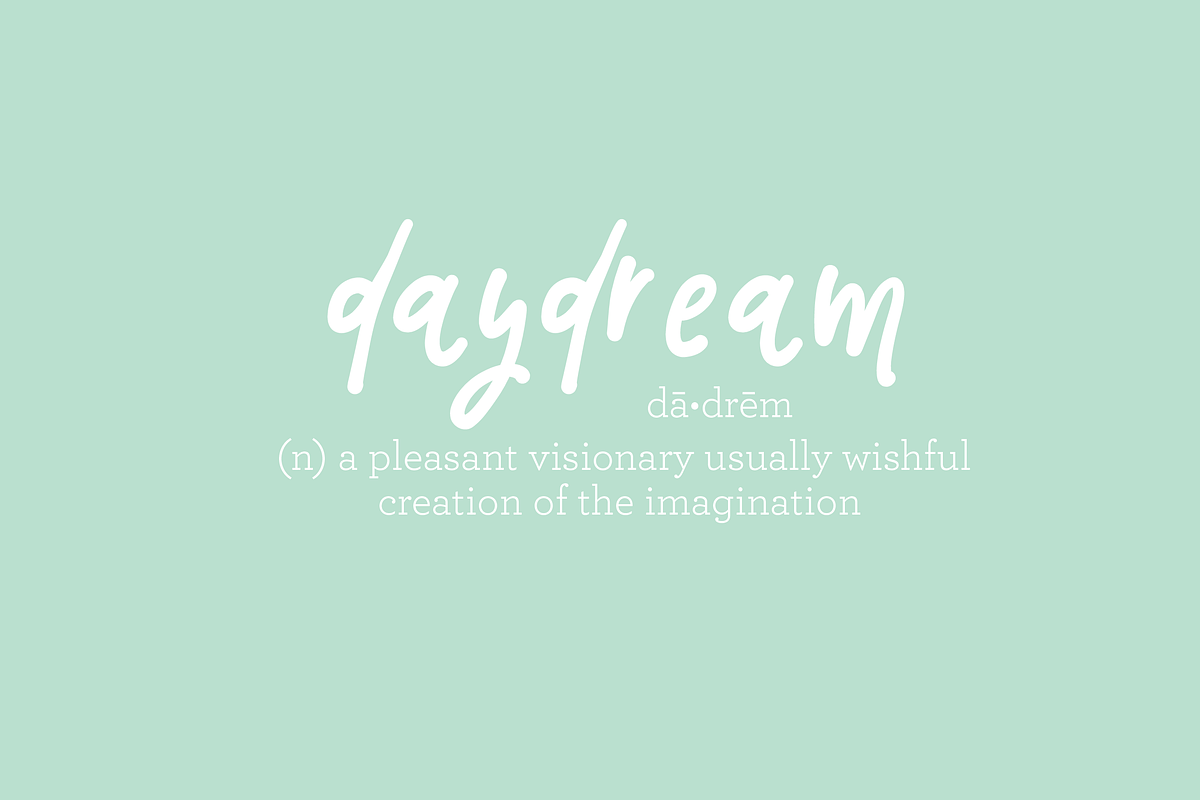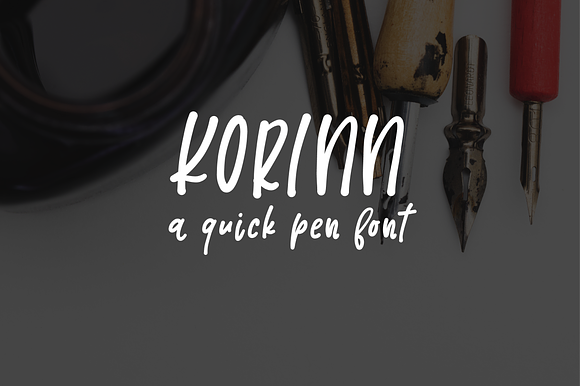
Korinn - A Quick Pen Font
Meet Korinn! Drawn with the crafter in mind! Korinn looks like a quick note taking font great for labels and marking school supplies!